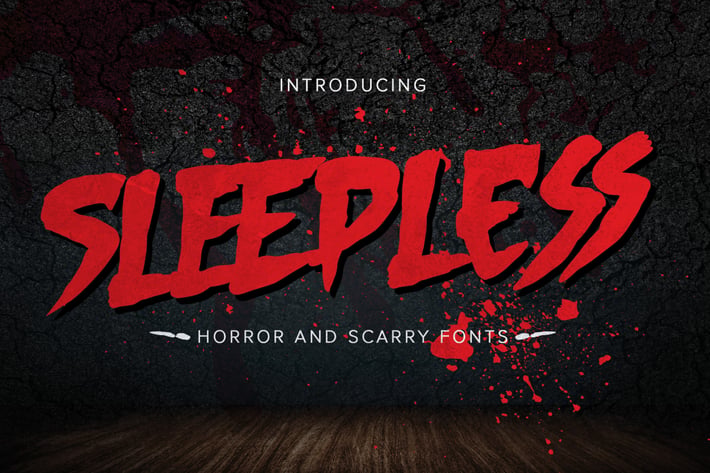
Sleepless - hand drawn Horror Brush font
Introducing of our new product Sleepless is a hand drawn Horror Brush font and dramatic movement. This font is great for your next creative project such as logos, printed quotes, invitations, cards, product packaging, headers, Logotype, Letterhead, Poster, Label, and etc.
Best for project that need horror vibes , horror poster, childrenbook, cartoon, comic .